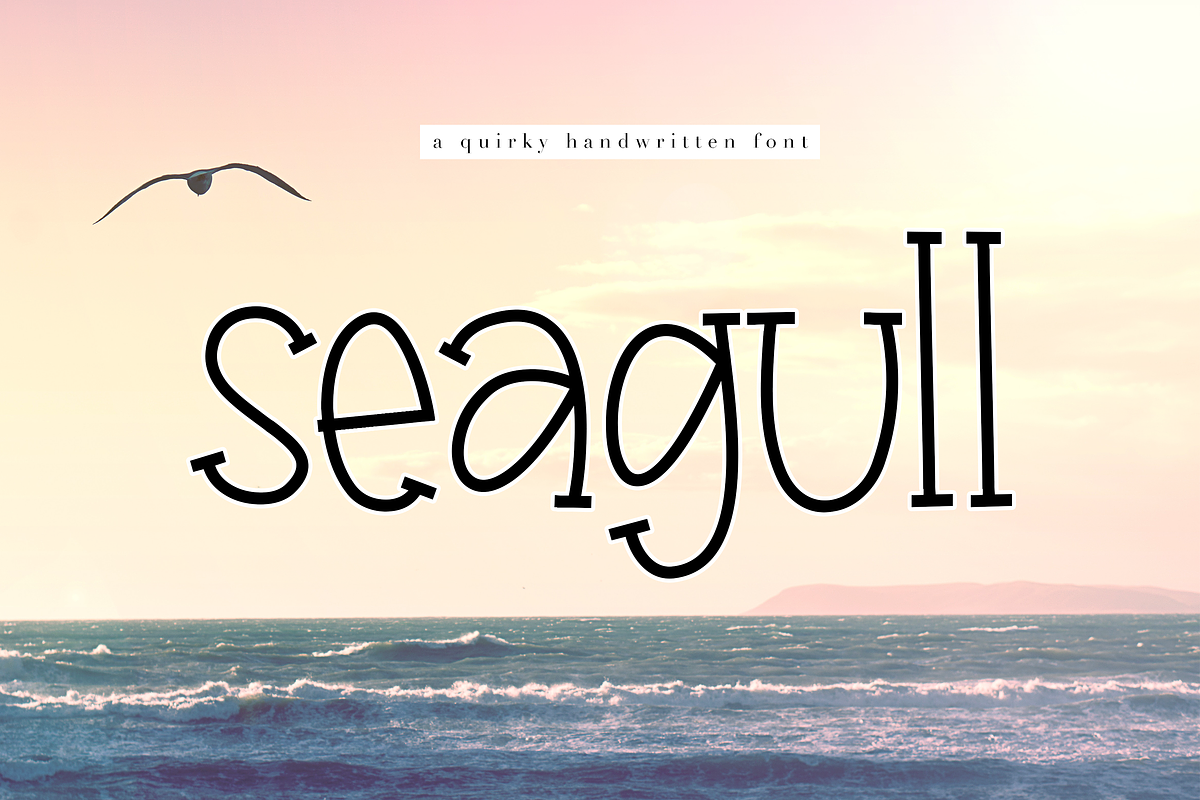
Seagull - A Handwritten Font Free Download
Seagull - A Handwritten Font Free Download is a stylish and unique handwritten font that brings a personal touch to any design. Its natural flow and authentic hand-lettered feel make it perfect for creative projects like logos, posters, invitations, and more. Whether you're working on a casual design or something that requires a more artistic flair, Seagull offers a versatile solution that adds personality and warmth to your work.
Seagull - A Handwritten Font Free Download comes with smooth, flowing strokes and a charming style that will complement a variety of design concepts. Whether you're designing for social media, print, or branding, this font ensures that your message is delivered with a personal and memorable touch. Its ease of readability and creative design make it a must-have for any designer’s toolkit.